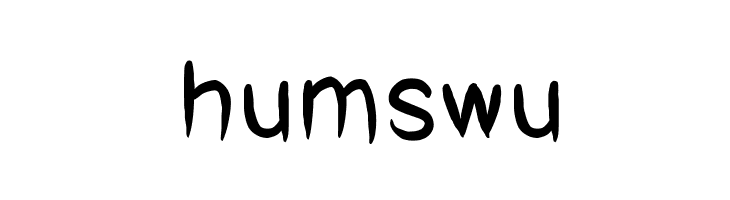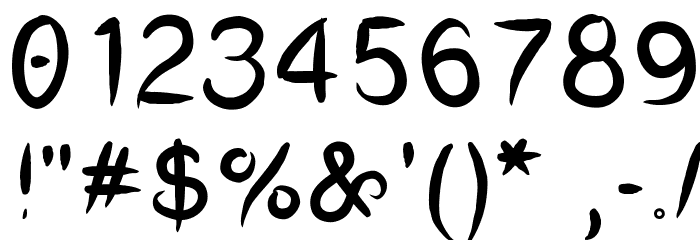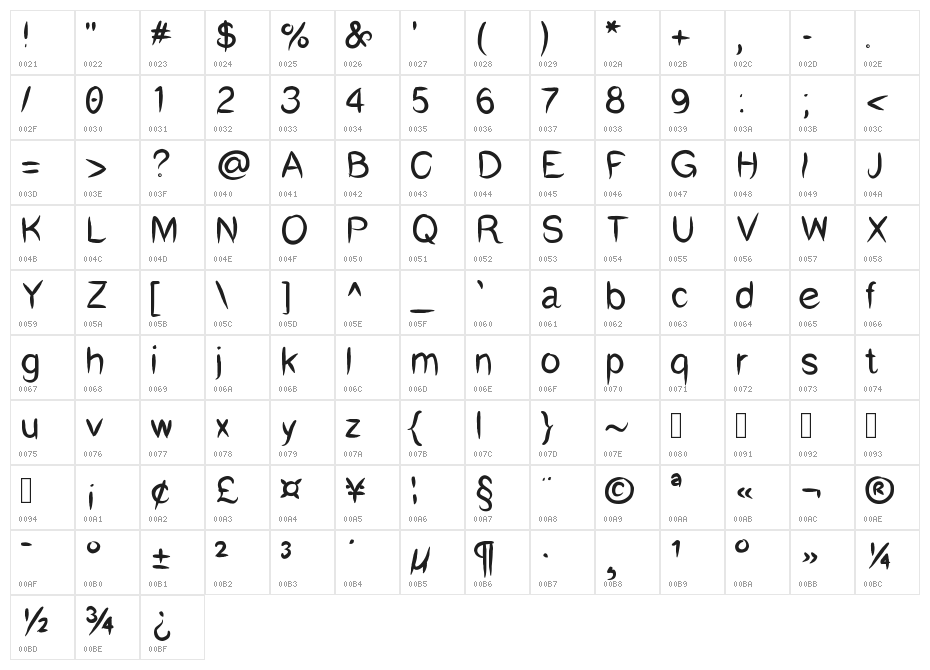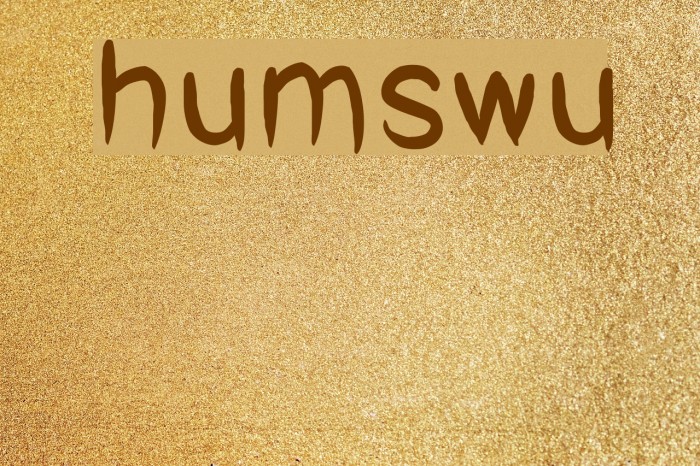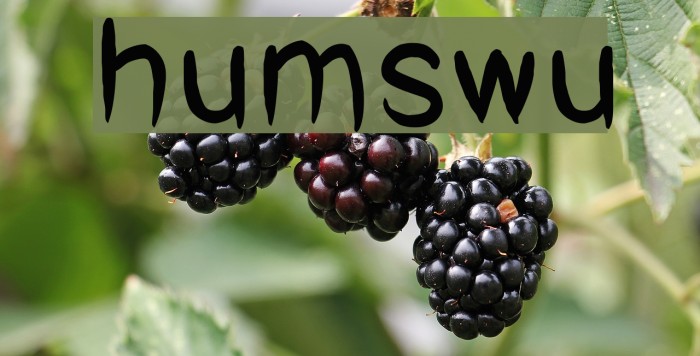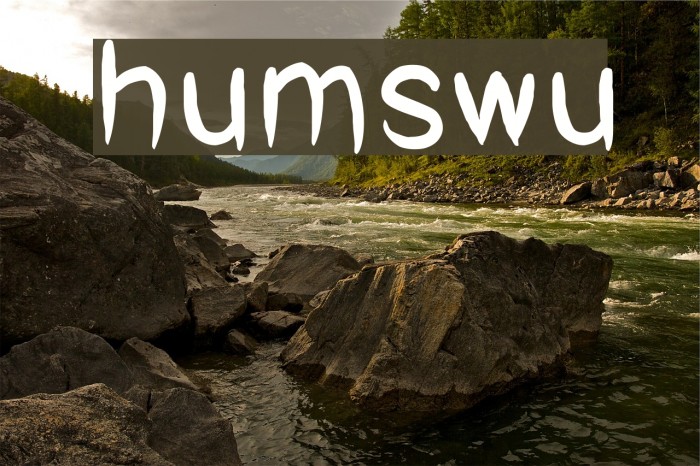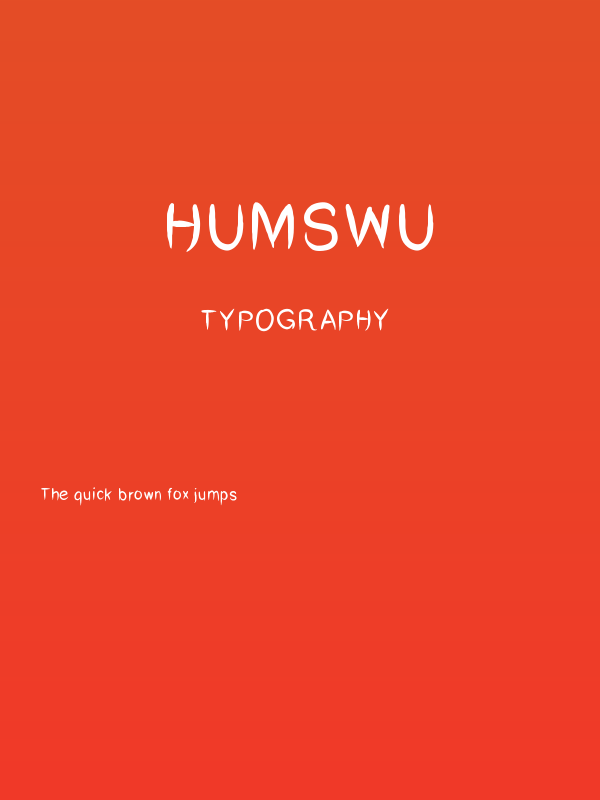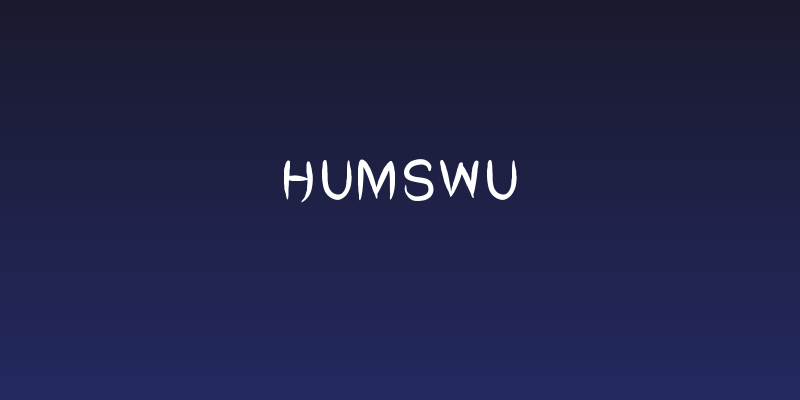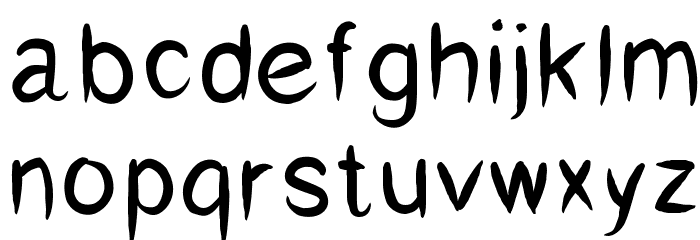
humswu Font
humswu Description
This font features a playful and dynamic handwritten style, characterized by its irregular and organic strokes. The letters have a casual and informal appearance, with varying thickness that adds a sense of movement and energy. The uppercase and lowercase letters maintain a consistent flow, while the numerals and special characters complement the overall style. The font's unique personality makes it suitable for projects that require a touch of creativity and individuality.
| Use Case | Headlines, Creative projects, Informal branding |
| Proposed Projects | Ideal for greeting cards, children's books, creative posters, and branding materials that seek a personal touch. |